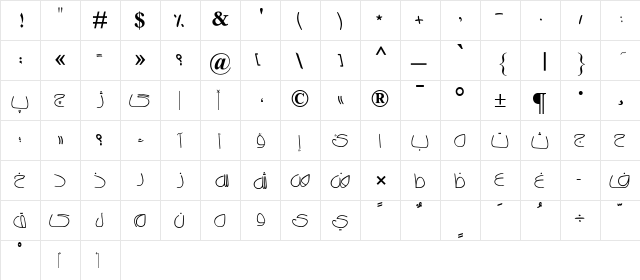
AGT Nazo Ana Regular
| Designer | Ahmad Gul Totakhyl |
Design Context for AGT Nazo Ana Typeface
AGT Nazo Ana is a composed and adaptable typeface that performs quietly and consistently across a wide range of design contexts.